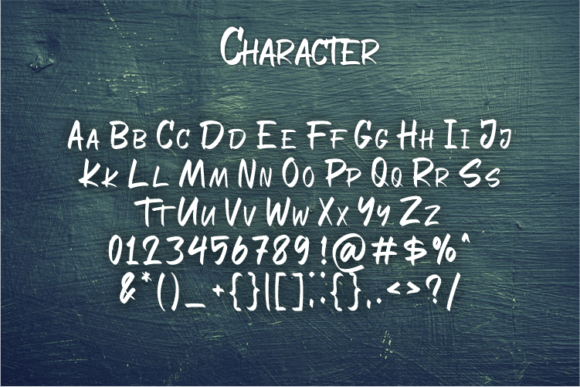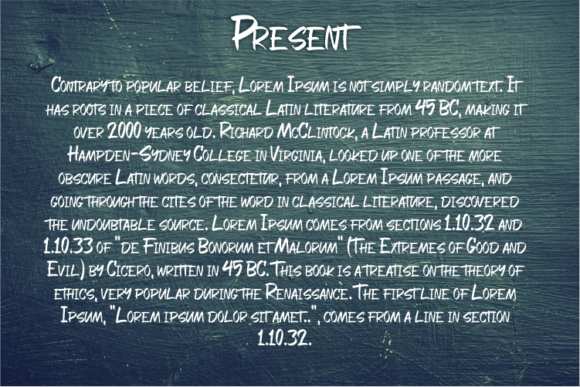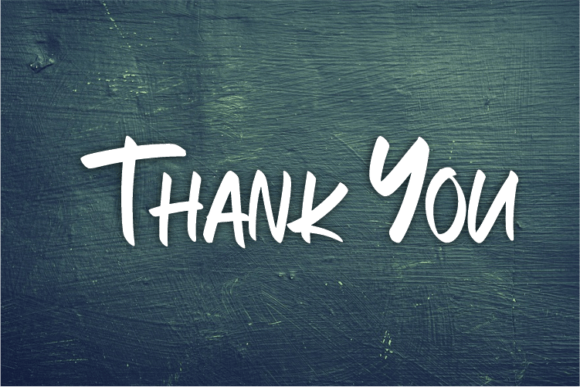
Introduction to Lostdoll Font
Remember that moment when you stumbled upon the perfect font for your creative project, and it took it to the next level? For designers, finding the right typeface can be a game-changer. It’s what sets apart a beautiful design from a mediocre one. And that’s exactly what the Lostdoll Font offers – a high-quality script typeface that exudes elegance and sophistication.
Whether you’re working on a luxurious logo, designing a book or movie title, or creating a fashion brand, the Lostdoll Font is an excellent design resource to have in your arsenal. With its modern look and simple style, it’s perfect for a wide range of creative projects, from magazines and clothing to quotes and more.
Key Features of Lostdoll Font
- High-quality design resource for creative projects, offering a unique and playful aesthetic.
- Unique characteristics include a whimsical, hand-drawn feel and a wide range of expressive emotive faces.
Honest Review: Lostdoll Font
I recently stumbled upon the Lostdoll Font, and I must say it’s a lovely addition to any design resource library. With its high quality and versatility, it’s perfect for any creative project that requires a unique touch.
The font itself is quite elegant, making it ideal for titles, headings, and even body text. The transparent background allows for seamless integration with any design, making it a great choice for web designers and graphic artists.
- ✨ Versatile font that can be used for titles, headings, and body text
- ⚠️ Limited character set, which might not be ideal for long-form text
Overall, I’m impressed with the Lostdoll Font. It’s a great free download that can elevate any design project. However, it’s essential to be aware of its limitations and use it accordingly.
Tips for Getting the Most Out of Lostdoll Font
Use Lostdoll Font in combination with other design elements to create a unique and eye-catching design. Experiment with different font sizes and colors to find the perfect balance for your creative project. The high quality design resource of Lostdoll Font will add a professional touch to your designs.
Lostdoll Font is perfect for designers who want to add a touch of whimsy to their designs. It’s great for use in children’s book illustrations, party invitations, and other creative projects that require a playful and imaginative touch. The free download of Lostdoll Font makes it a great resource for designers of all levels.